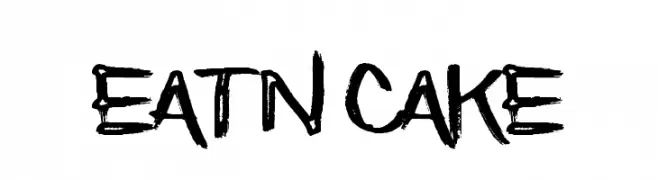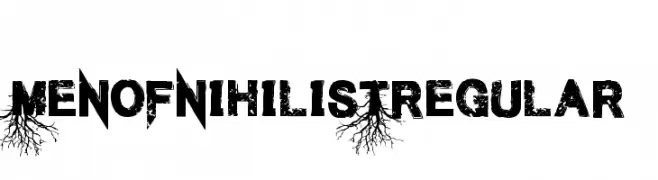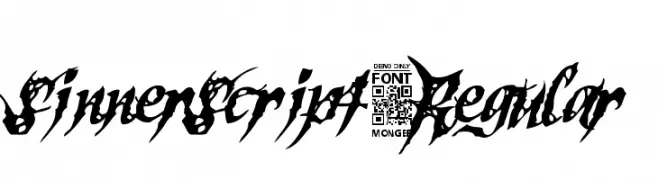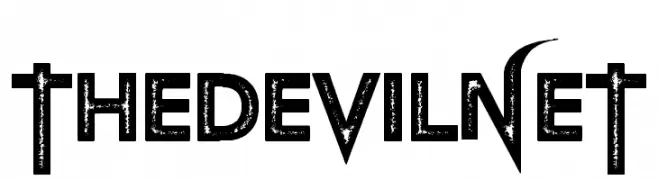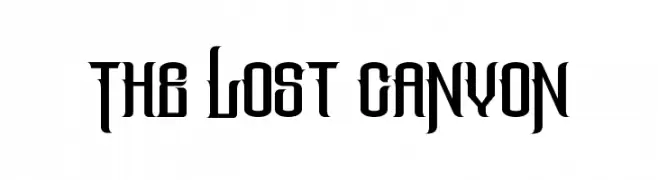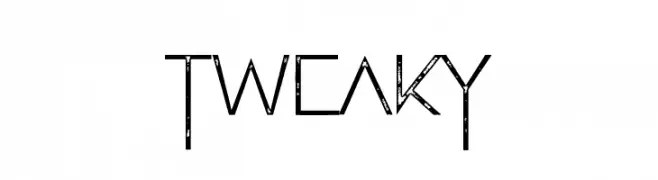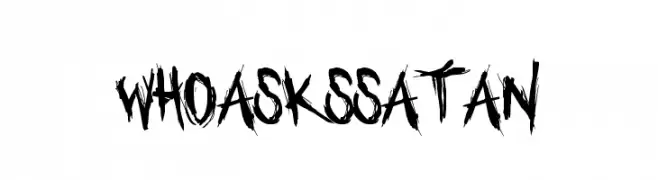
A bold, gothic-inspired script font with intricate, thorn-like details.
A bold, distressed font with a gritty, weathered appearance.
A bold, distressed font with a vintage, rugged appearance.
A bold, hand-drawn font with an energetic and distressed style.
A chaotic, jagged font with a raw, hand-drawn appearance.
A tall, narrow font with a distressed, vintage texture.
A bold Gothic font with sharp, angular lines and a dramatic presence.
A bold, decorative font with gothic influences and high contrast strokes.
A bold, angular italic font with a dynamic and modern style.
A bold, gothic-style font with sharp, angular edges and a medieval feel.